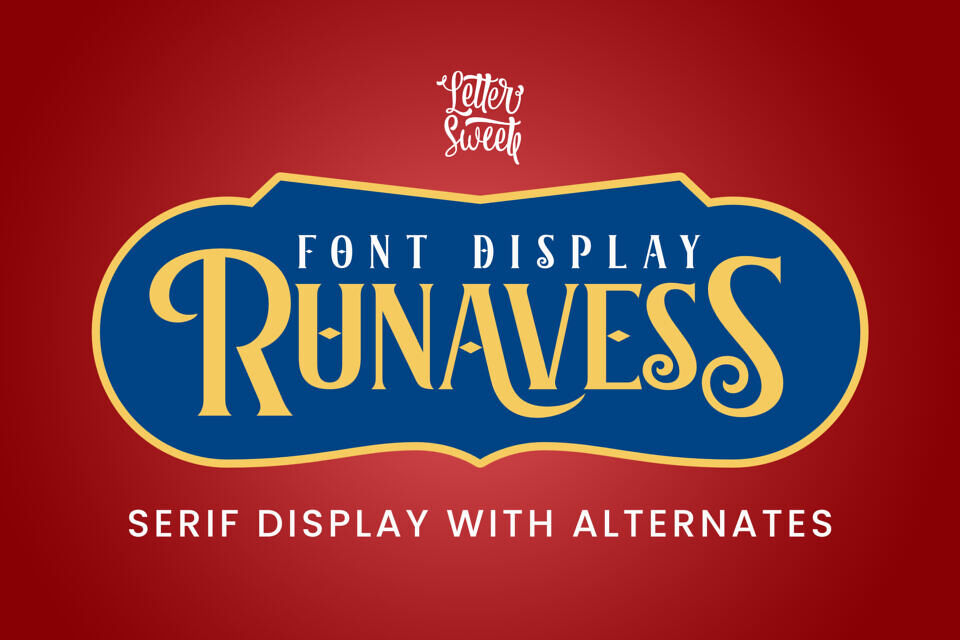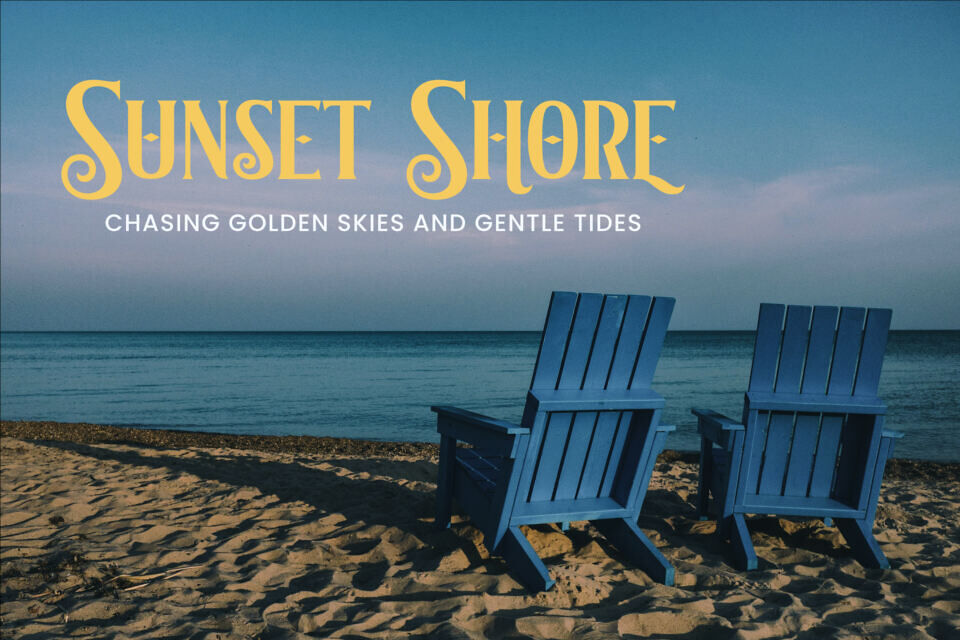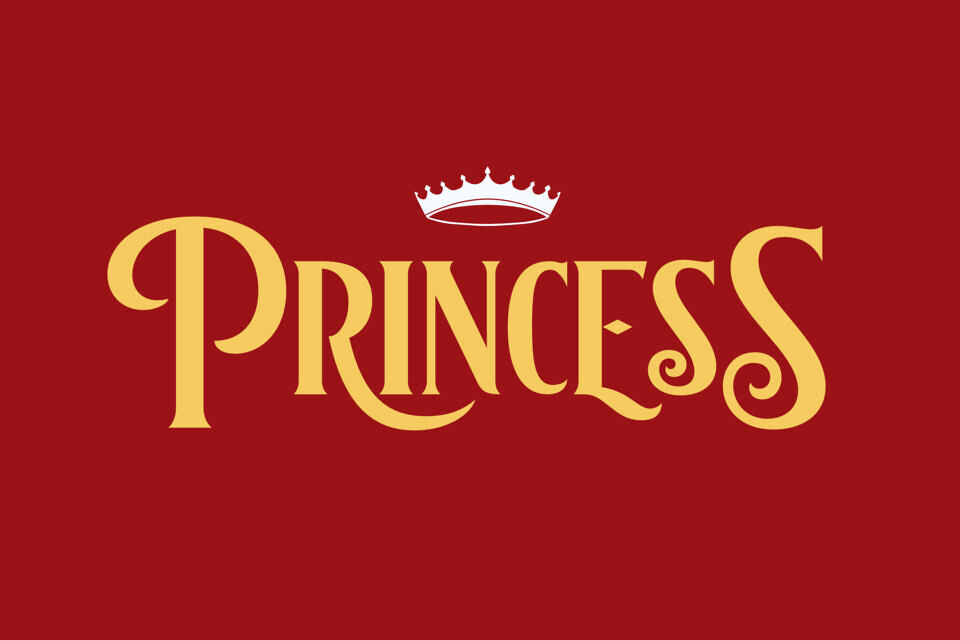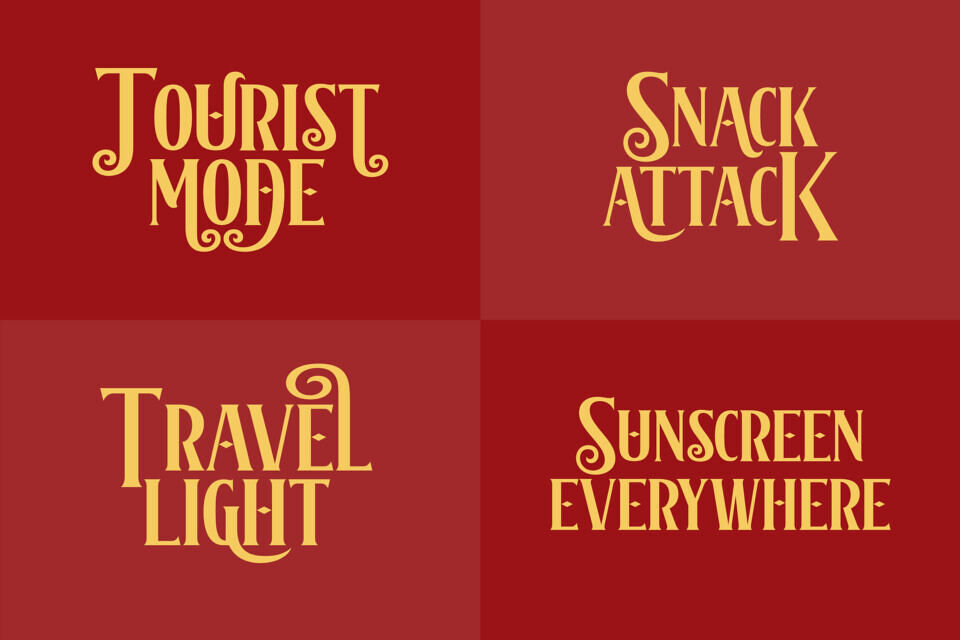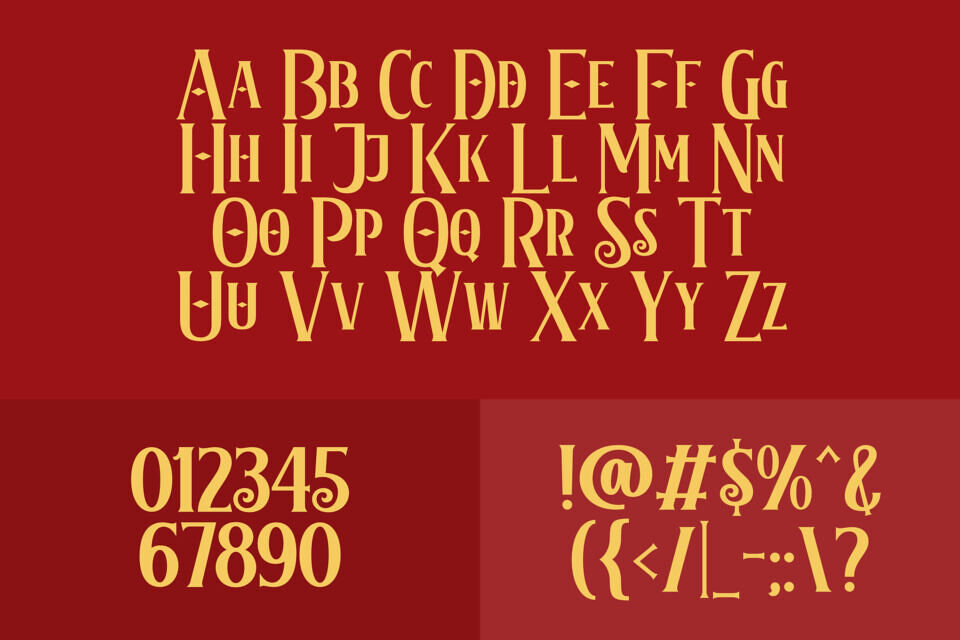
Runavess Font
Runavess is a serif display font that blends classic elegance with a bold, modern twist. Designed with intricate details and strong letterforms, this font is perfect for anyone looking to stand out with style.
Equipped with eye-catching alternates, Runavess gives you the creative freedom to craft dynamic, artistic, and sophisticated designs. Ideal for branding, posters, vintage logos, packaging, and editorial projects that need a retro-modern flair.
Key Features:
• Unique serif style with artistic curves
• Alternate characters for creative variety
• Perfect for display and branding needs
• A mix of classic, retro, and elegance in one pack
Make a bold visual statement with Runavess – because every letter is a work of art.